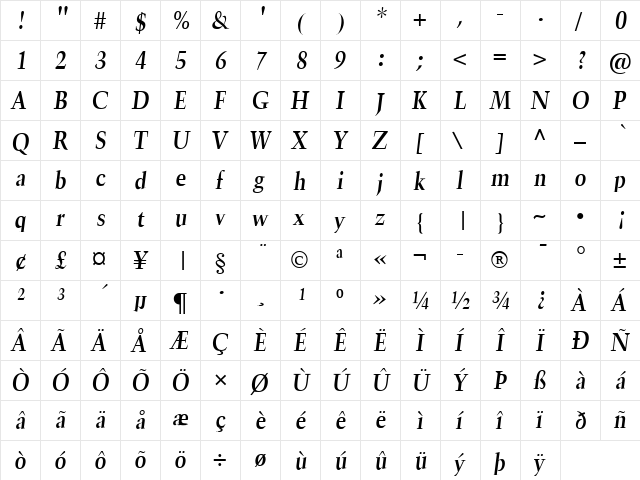
TrumpetLite BoldItalic
Design Context for TrumpetLite Typeface
TrumpetLite takes a measured approach to typography — its balanced proportions and neutral character make it a reliable workhorse for both digital and print work. The slanted form adds forward momentum and visual energy. The heavy weight commands attention and anchors typographic hierarchies.
Pro Tip: Try TrumpetLite for annotation and caption copy alongside an upright companion — the contrast in angle creates a dynamic but ordered typographic system.